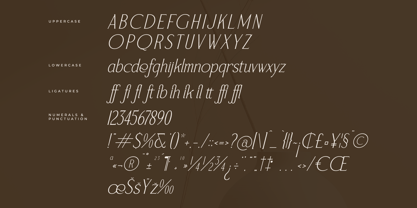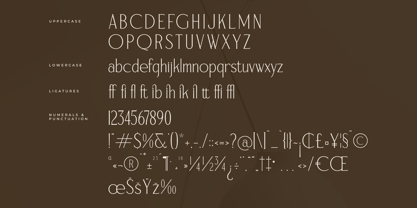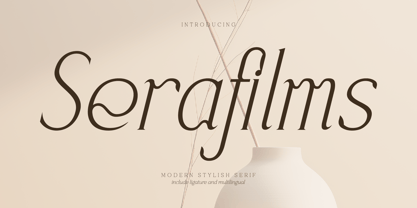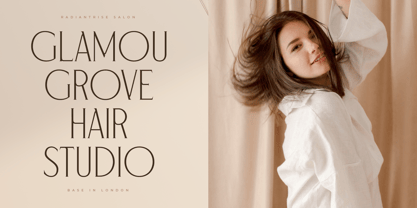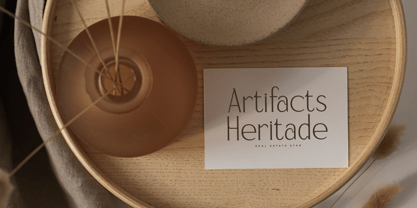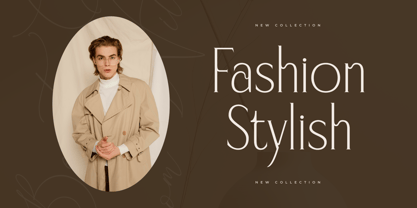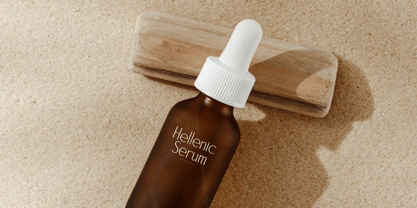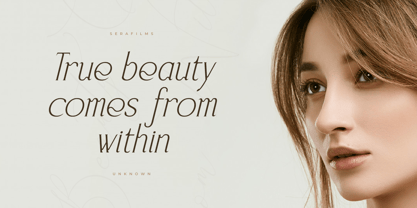
Serafilms
by Letterena Studios
The Serafilms Font Family was designed by Heru Utama Putra and published by Letterena Studios. Serafilms contains 2 styles and family package options.
If you're looking for a font that exudes elegance and sophistication, look no further than Serafilms. With its classic lines and ornate serifs, Serafilms adds a touch of refinement to any design project. From wedding invitations to book covers, this is a versatile choice that can be used in a variety of contexts to convey a sense of timelessness and tradition.